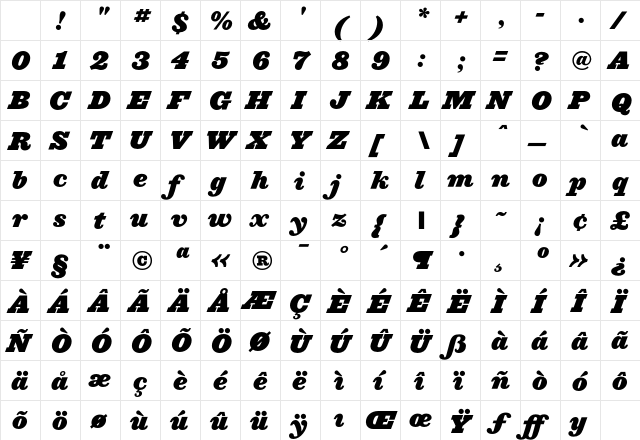
Ziggurat HTF-Black-Italic
Style: HTF-Black-Italic
Design Context for Ziggurat
Ziggurat is a composed and adaptable typeface that performs quietly and consistently across a wide range of design contexts. The slanted form adds forward momentum and visual energy.
Pro Tip: Use Ziggurat for emphasis, pull quotes, and subheadings where its slanted energy can add rhythm to the layout.